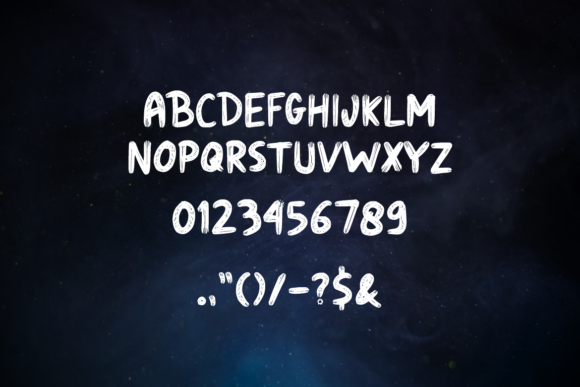
Wisking Font
db-ku.com - Script & Handwritten -- Wisking is a cool and brushed handwritten font. Add this casual and friendly font to your favorite creations and notice how easily they stand out.